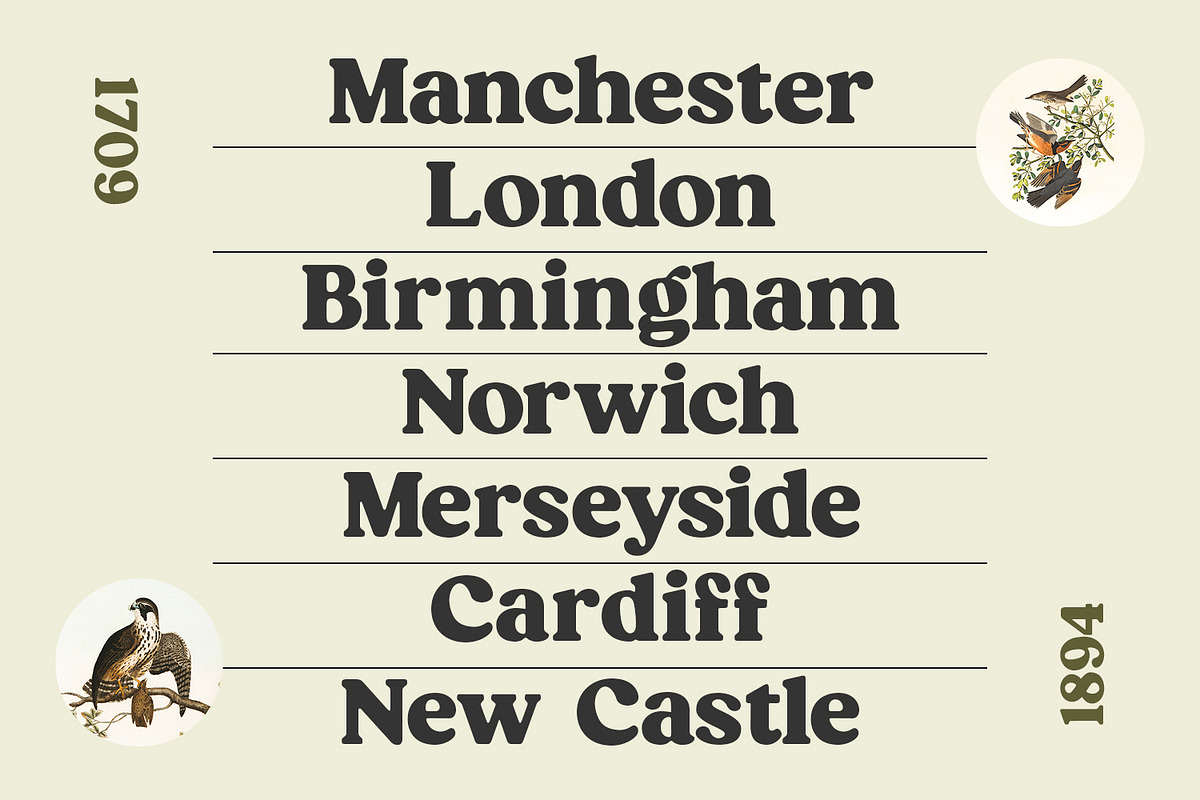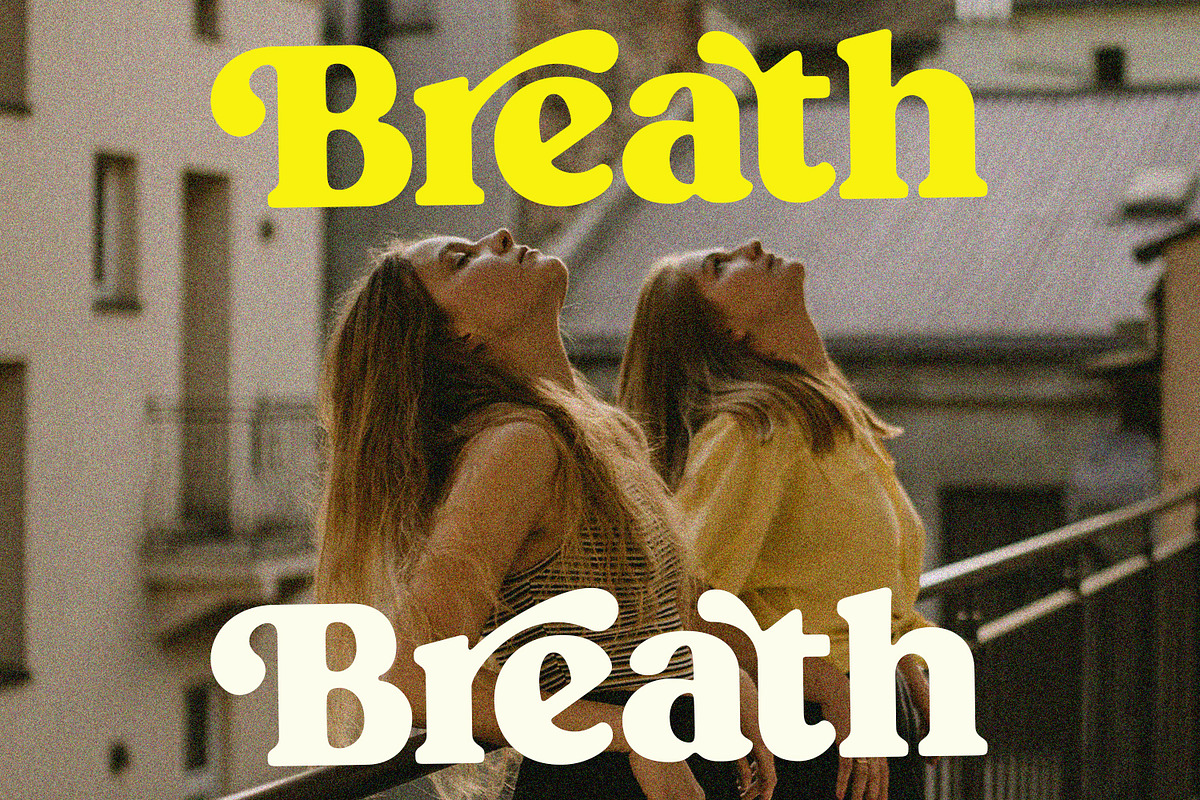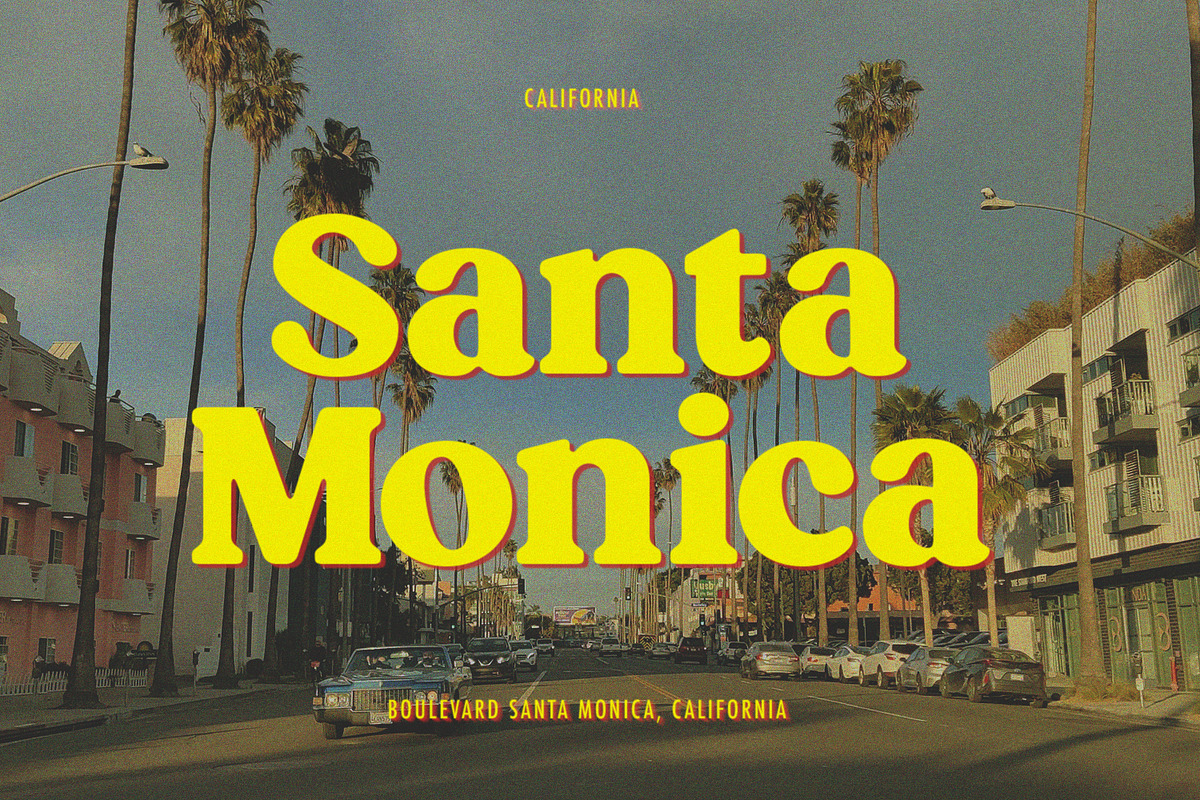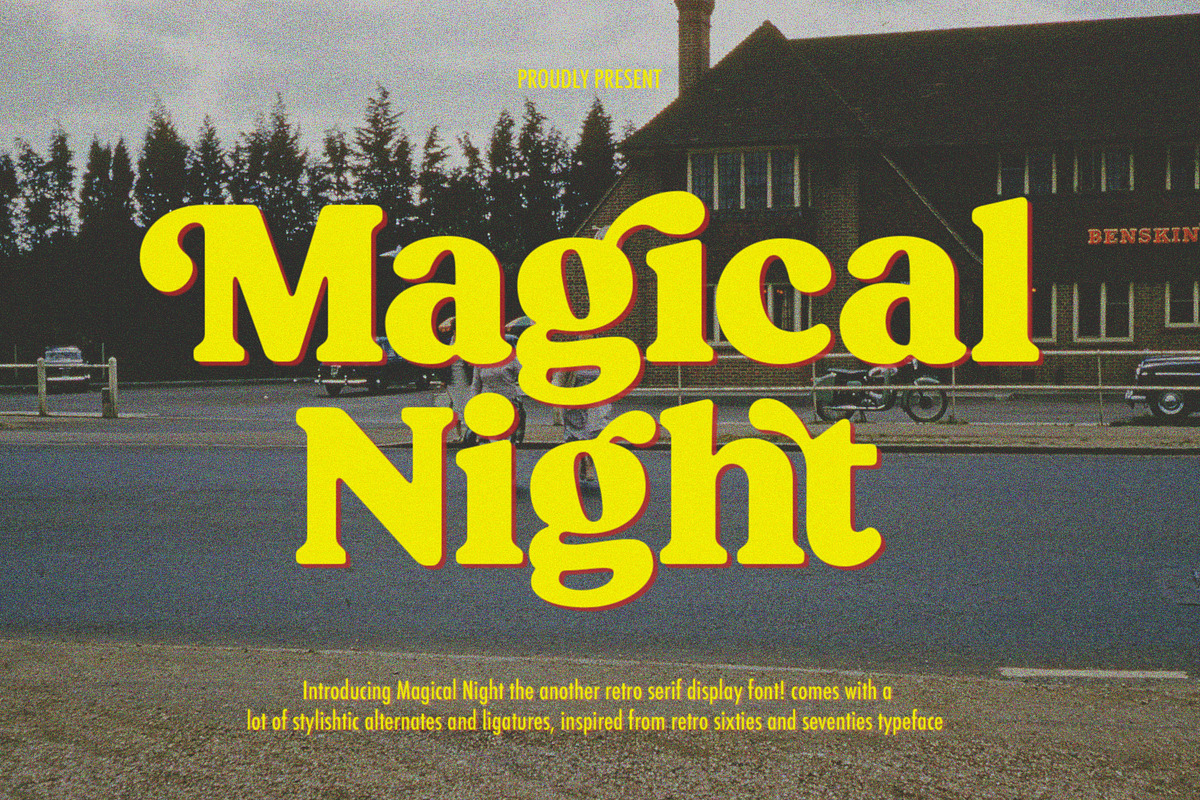
Magical Night - Retro Serif
Magical Night is an another retro serif font inspired by classic sixties and seventies bold typeface, comes with alternate and ligature make this font more stylish with retro style. This font will be suit for heading, logotype, poster, and many more.